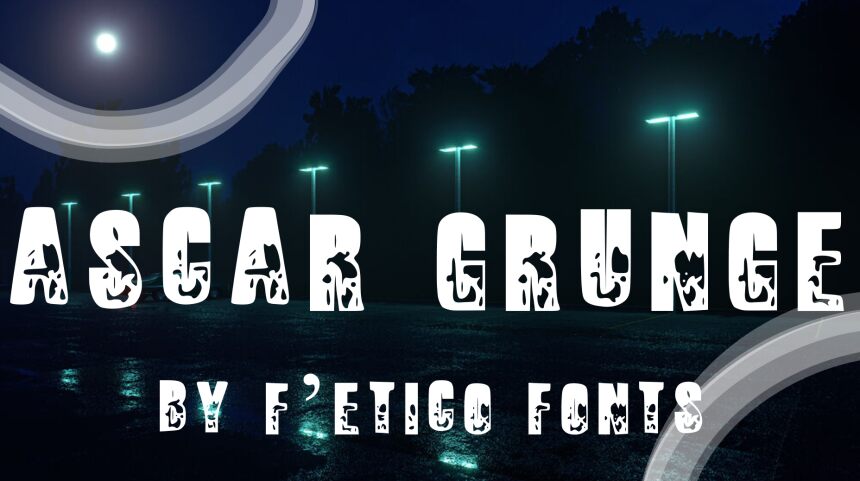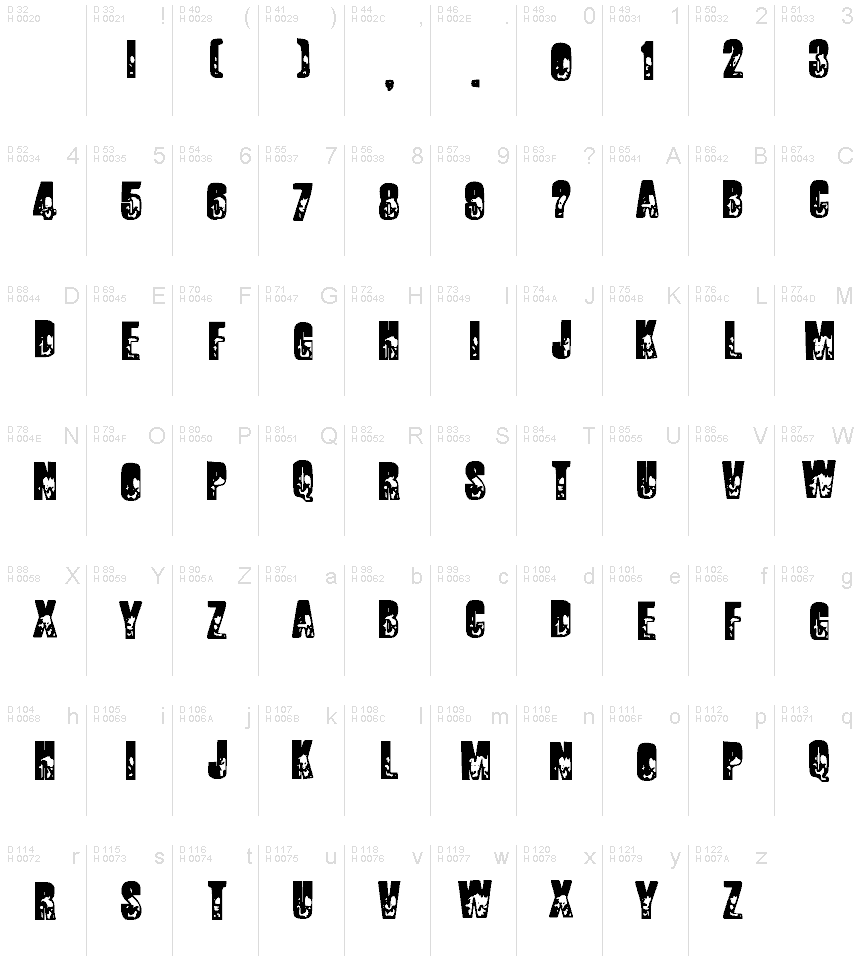
Itc Ascar Grunge Regular
ITC Ascar Grunge font is a retro display typeface with unusual urban features. The capital characters carry an eroded painted texture that gives them a distressed and rebellious attitude. The font’s vintage influence can be visibly felt, yet the rugged shapes have a modern distinctive appearance that makes them different and new.
Use ITC Ascar Grunge in all sorts of fun projects related to music, urban life, cyberspace, social media, extreme sports events, video games, graffiti art exhibitions or initiatives etc.